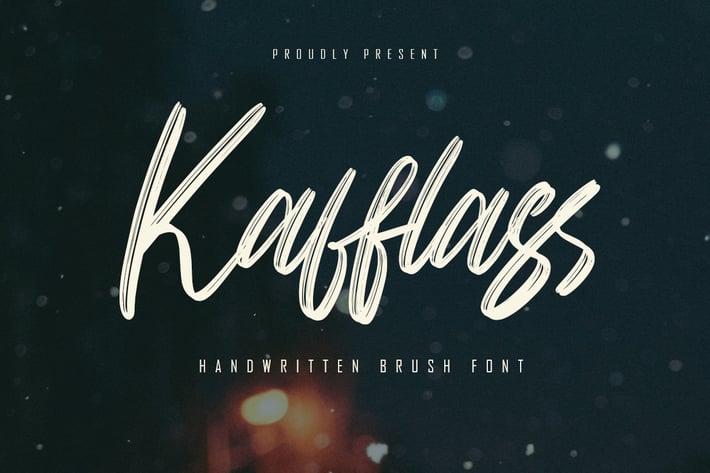
Kafflass - Handwritten Brush Font
Kafflass is a natural handmade textured brush text font with an irregular base line. Suitable for use in title design. Such as , films, quotes, branding, logos, and others.
+ Ligature
+ Basic Latin Language Support (AÀÁÂÃÄÅCÇDÐEÈÉÊËIÌÍÎÏÑOØÒÓÔÕÖUÙÜÚÛWYÝŸÆß )